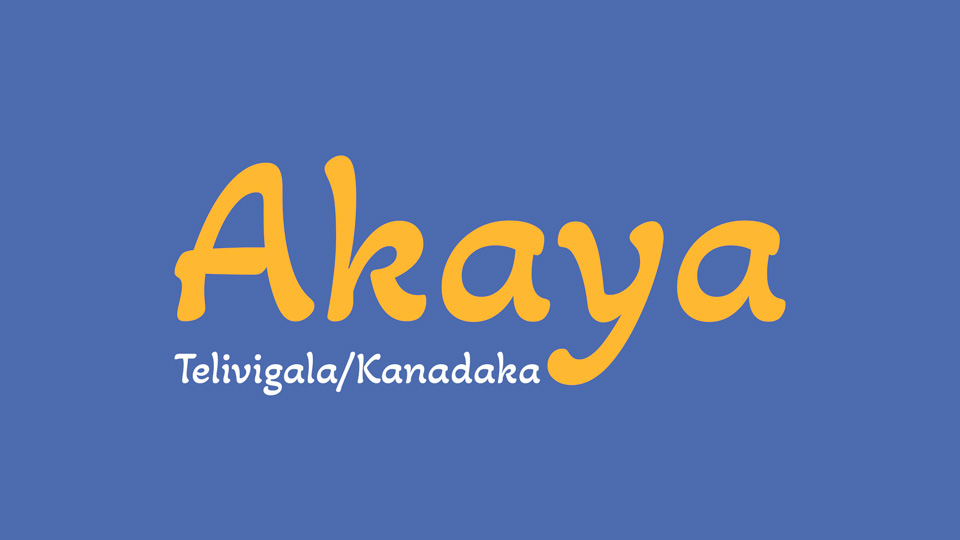
Download Akaya font, an experimental display typeface in Kannada, Telugu and Latin scripts based on this lively handwritten style. Akaya Telivigala and Akaya Kanadaka are made as two separate font files which share a common Latin.
Designer: Vaishnavi Murthy